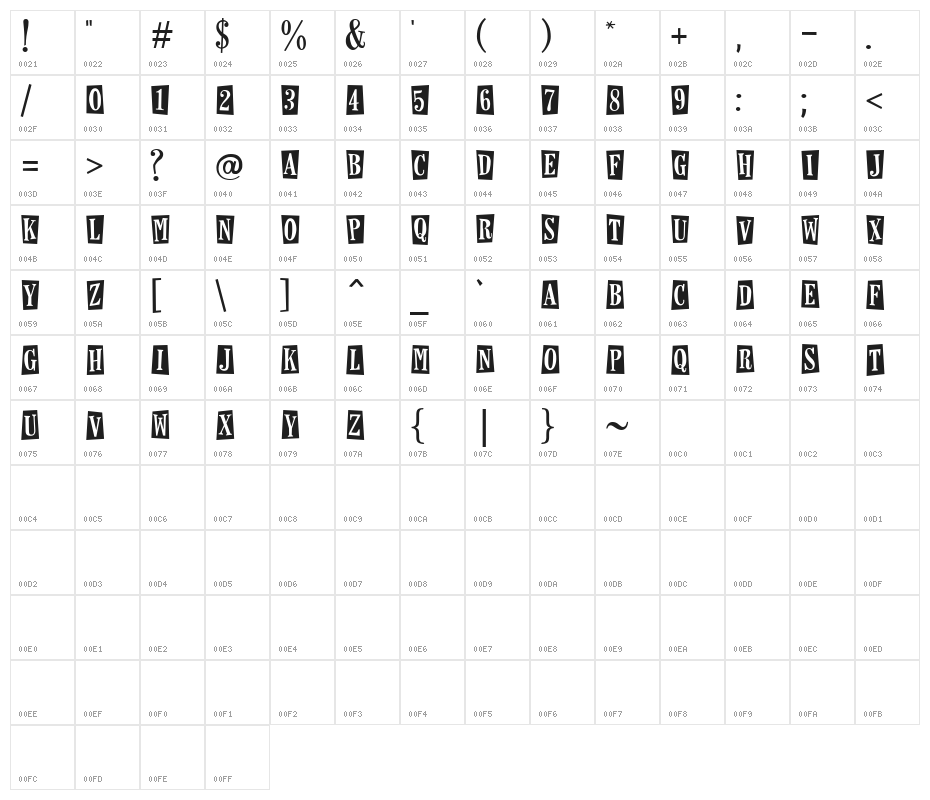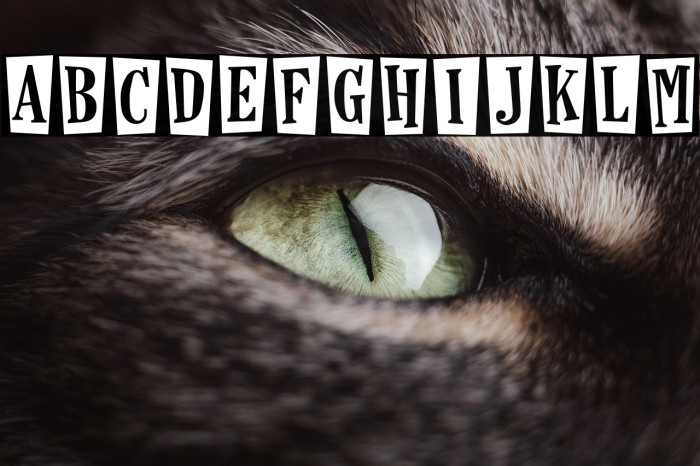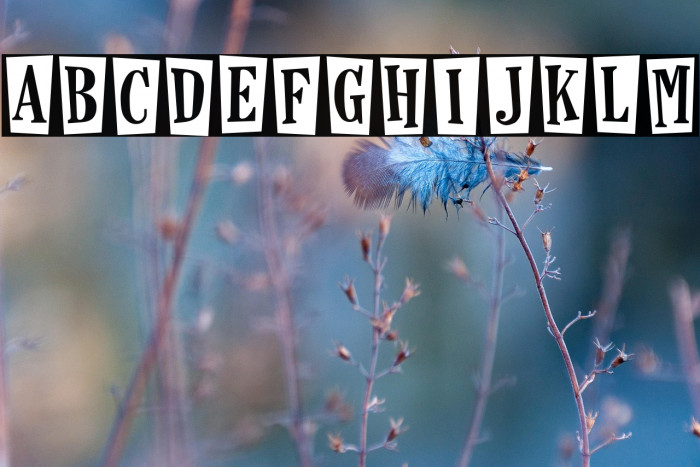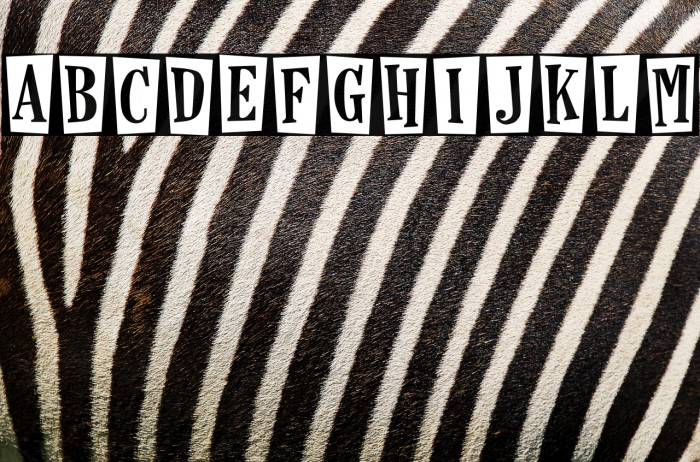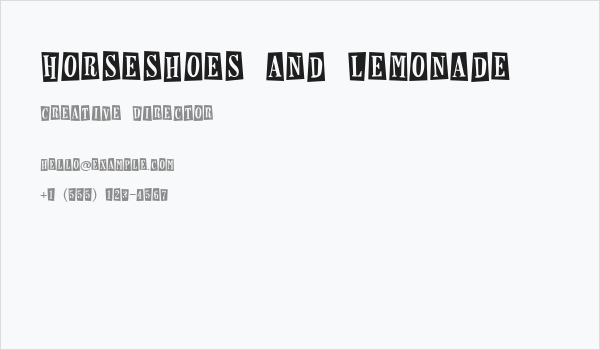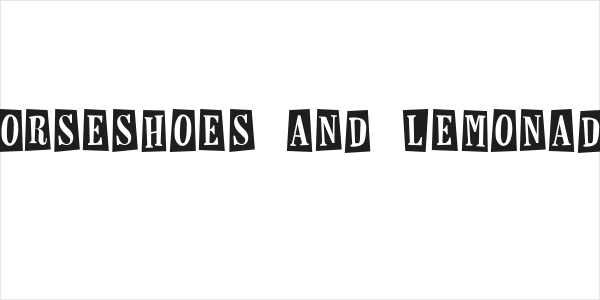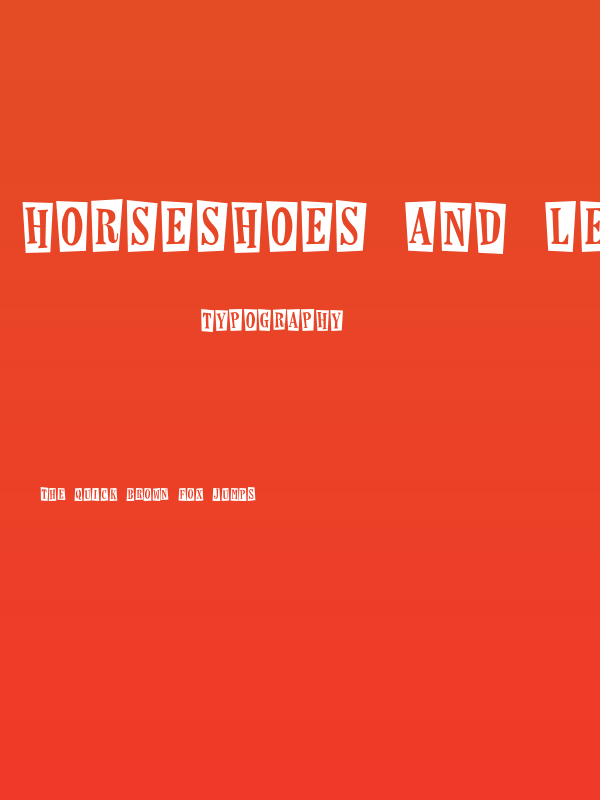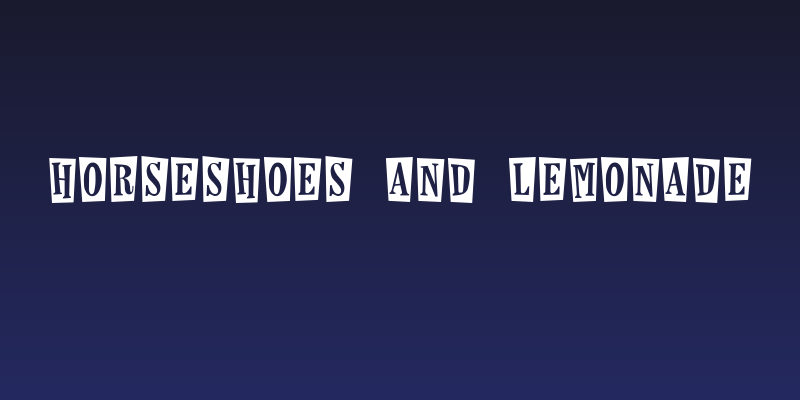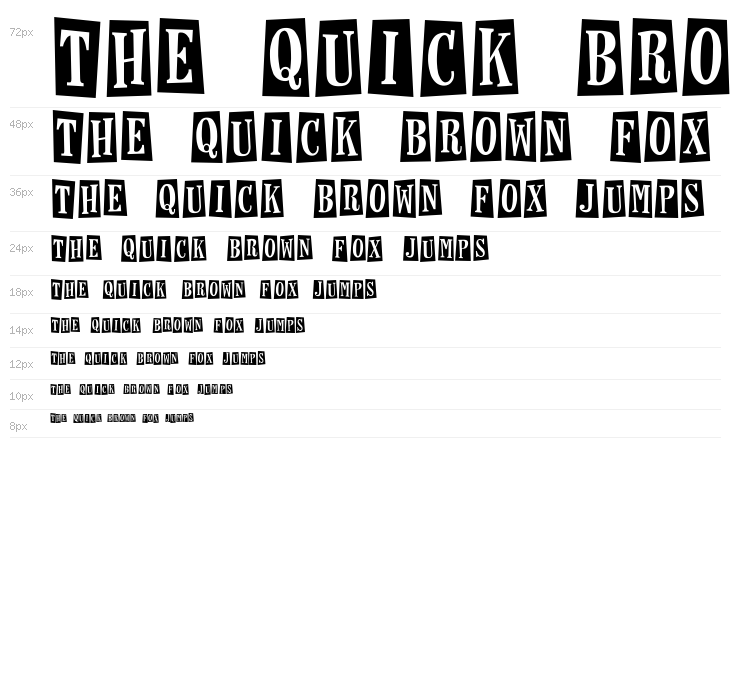
Horseshoes and Lemonade Font
Horseshoes and Lemonade Description
This font features a playful and whimsical design with each character appearing as if cut from paper and slightly tilted, giving a dynamic and lively feel. The letters are bold and have a distinct, irregular shape that adds to the quirky aesthetic. The uppercase and lowercase letters maintain a consistent style, with some characters featuring unique embellishments, such as curls or exaggerated serifs. The numbers and special characters follow the same playful theme, making this font ideal for creative and informal projects.
Overall StylePlayful, Whimsical, Creative
Use CaseHeadlines, Posters, Invitations
Proposed ProjectsIdeal for children's book covers, playful posters, party invitations, and creative branding projects.